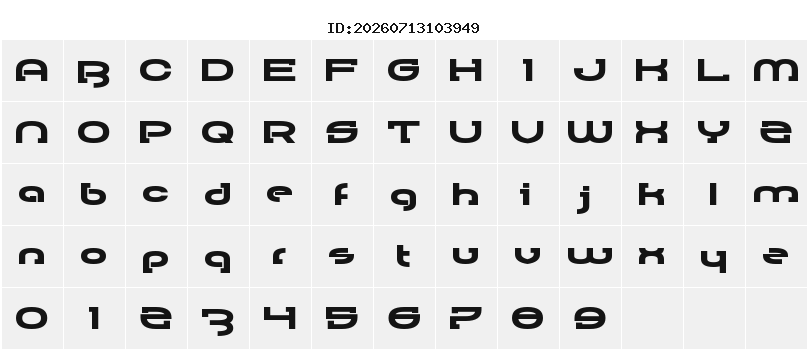
Rally Blade Preview
• Font Name: Rally Blade
• Designer: AM
About Rally Blade.otf
Rally Blade.otf is a modern, elegant sans-serif font designed for ultimate readability and visual harmony. Perfect for branding, headlines, web design, and print materials.